Any kind of fonts are noteworthy, but don’t underestimate these thin and skinny fonts, as they enliven the design in some cases and are a particularly nice option when playing bold and thin fonts together.
Today we want to present this amazing collection of fonts that will not leave you indifferent. If you’re a designer and you’re looking for something sophisticated, as if to add flavor to your design, try adding one of these thin and skinny fonts to it and you’ll see how all the feeling of the design changes.
Free Anaheim Script Font
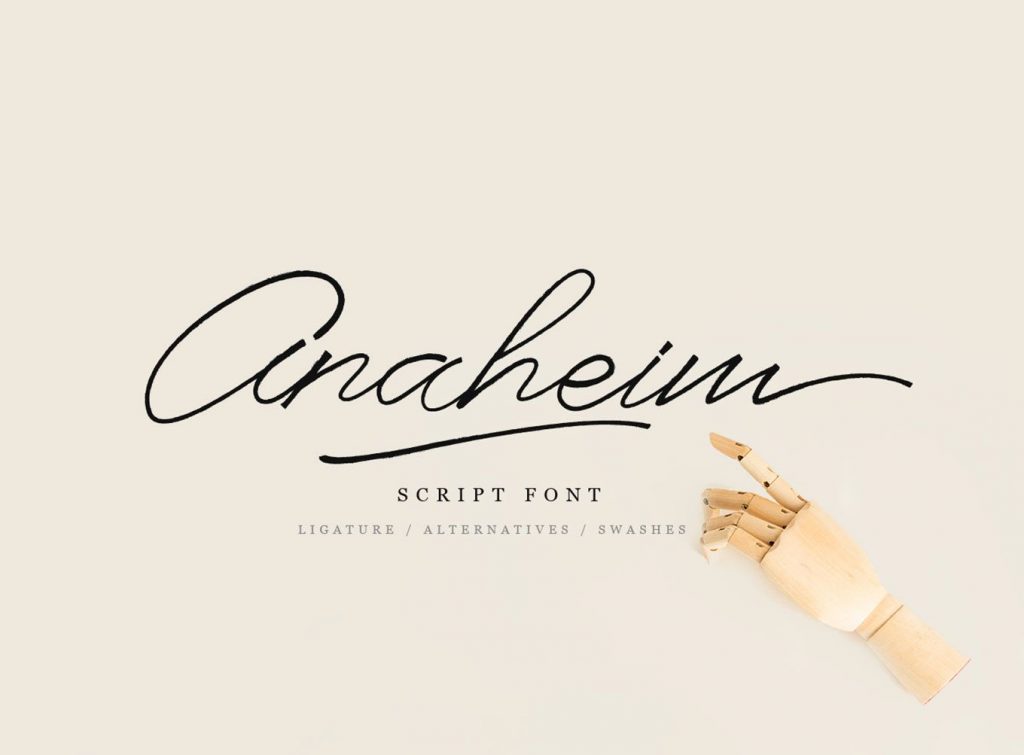
It is built with OpenType features and includes swashes, numbers, alternates and ligatures. Perfect addition to your cards, invitations, logos and any design longings.
Nectar Typeface
It is a thin and wide sans serif display font that’s great for chic titles, elegant invitations and classy logos.
Venge Typeface
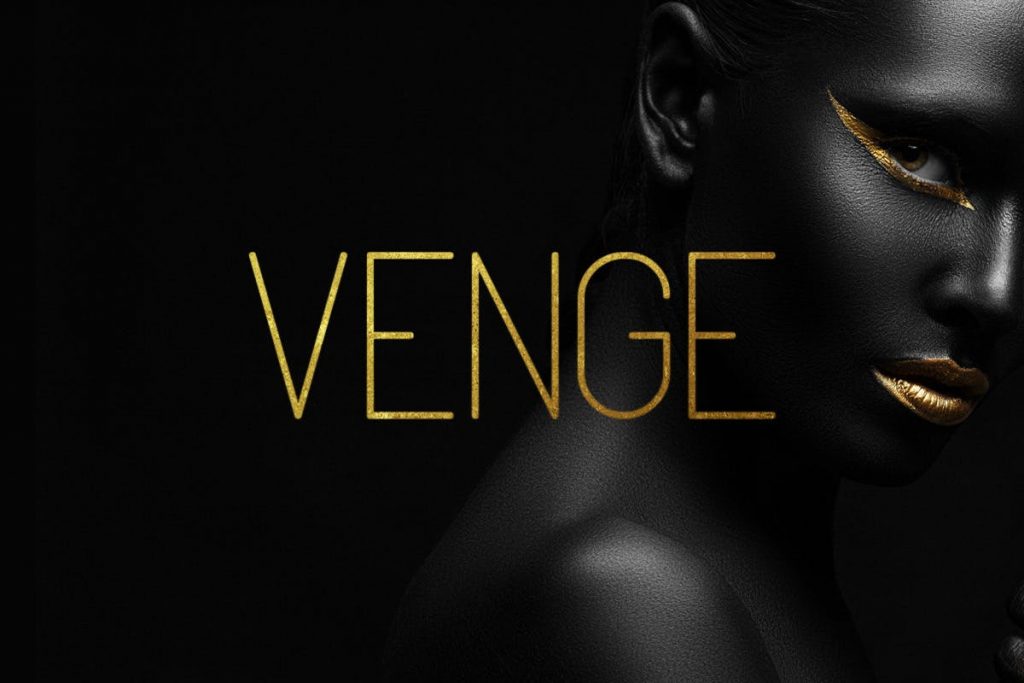
It is a thin, fashionable display typeface in 4 different styles. Ideal for tittles, covers, posters, packaging and etc.
Hacky Thin Font
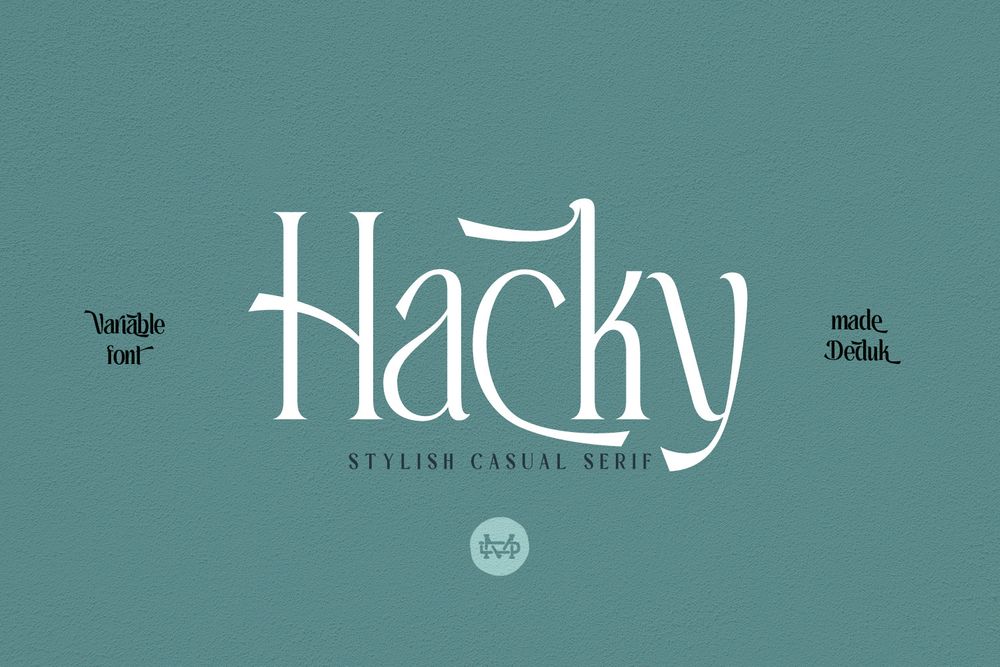
It’s a stylish luxury serif family. It’s clean and have the smooth angle with 9 variable weight and much alternative inside.
Suitable to create any branding, product packaging, invitations, quotes and etc.
Olive Font
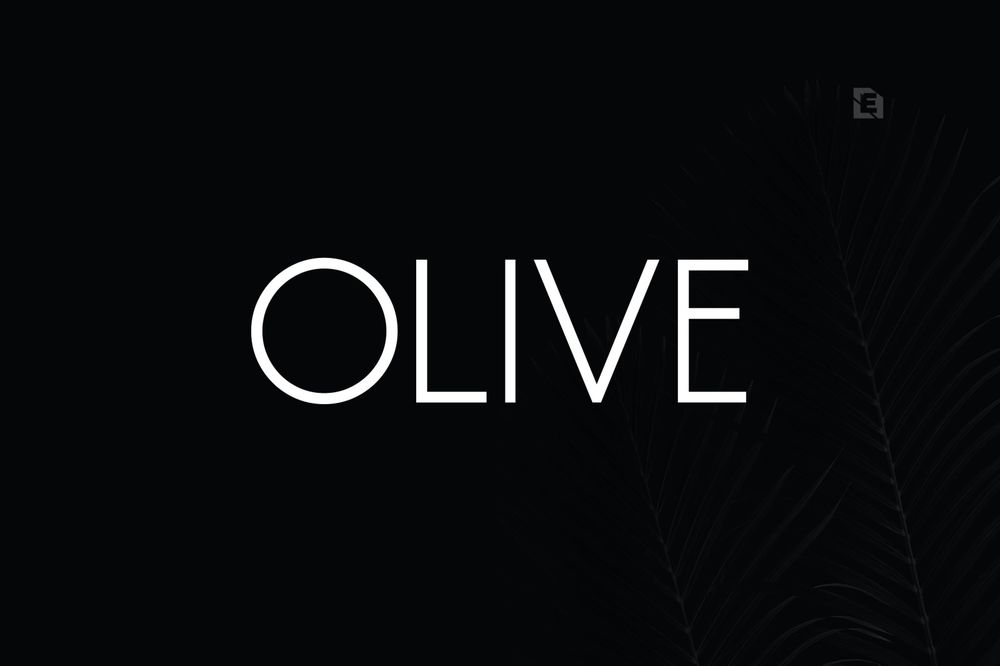
It is a minimal sans serif font type family of seven weights light to bold. Perfect for logos, packaging, greeting cards, presentations, headlines, lettering, posters, branding, quotes, titles and etc.
Holipop / Modern Serif Font
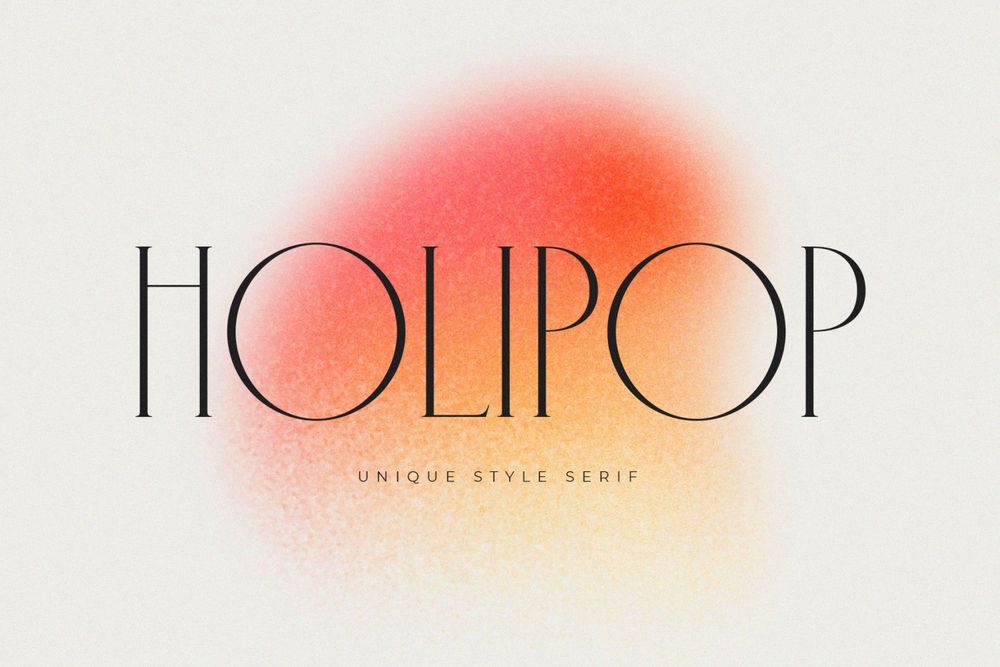
It is a modern and elegant typeface, best used as a display for headings, logos, branding, magazines, product packaging and invitations.
Nomor Serif Font
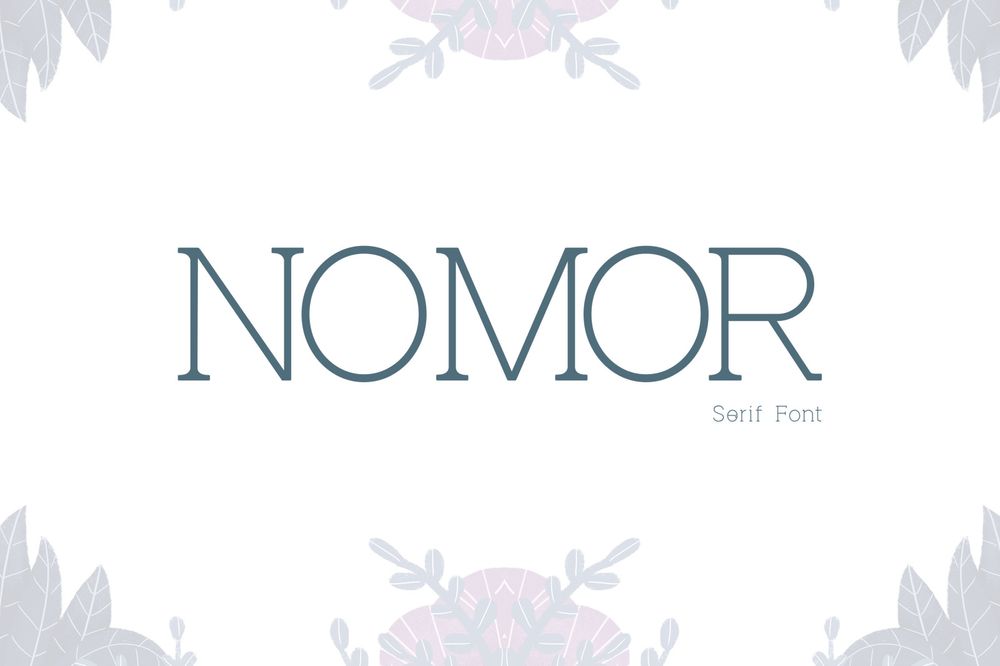
It is an elegant and thin lettered serif font. This adaptable font will look great on a variety of design ideas such as logos, promotional content, and marketing graphics that can bring uniqueness and freshness at its level best.
Monaco Font
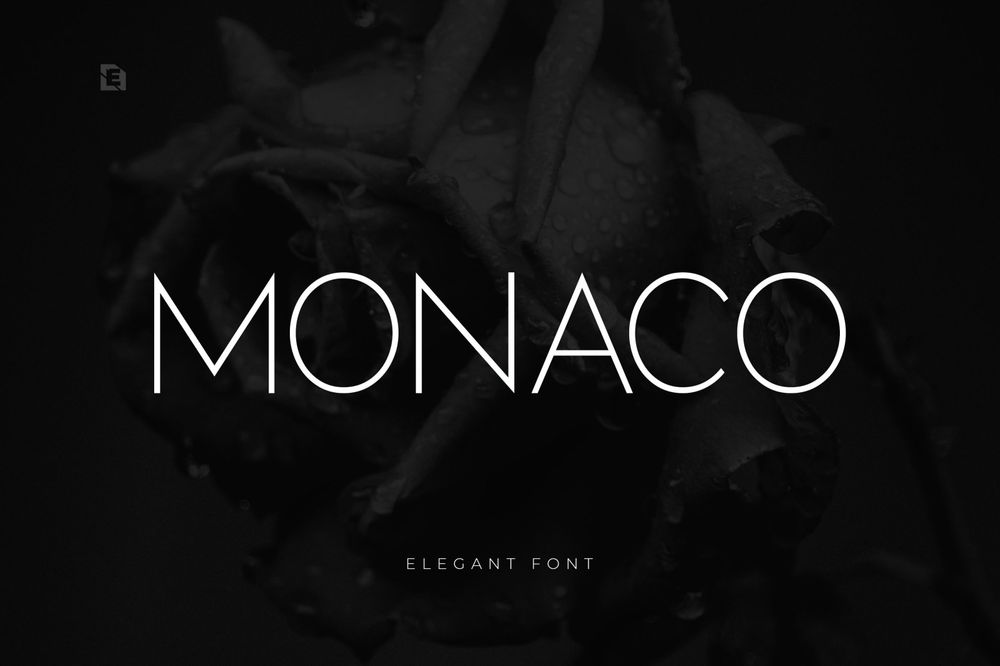
It is a new display font with cool characters. It’s a delightful font with a thin, elegant, style that will be great for any branding project.
Babicho Font
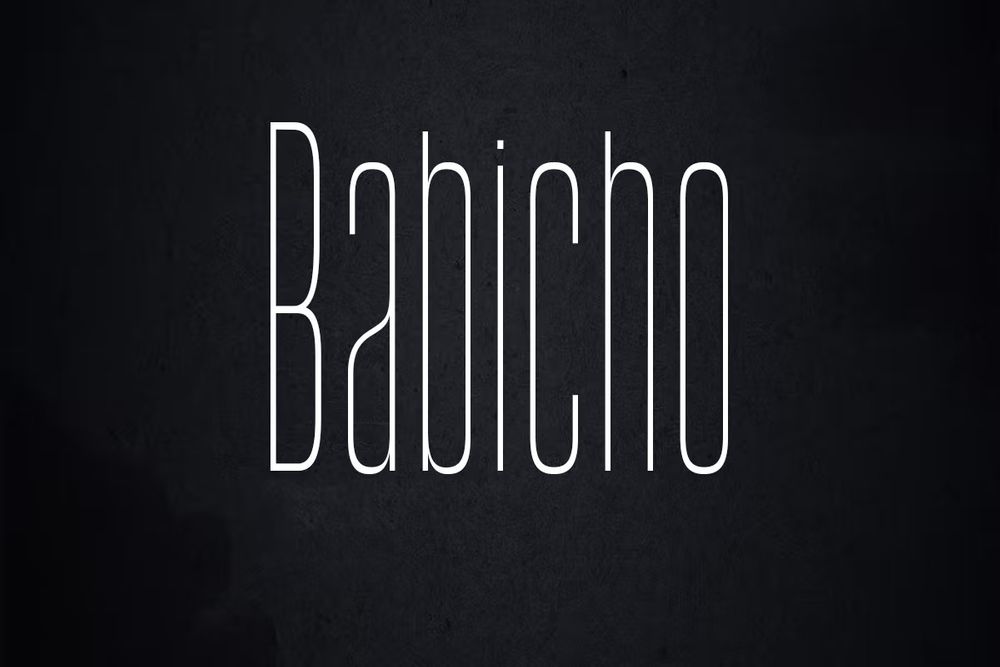
It is a sans serif with a thin and minimalist characters. Perfect for logos, name cards, magazine layouts, invitations, headers, posters, branding, packaging and etc.
Lorino Font
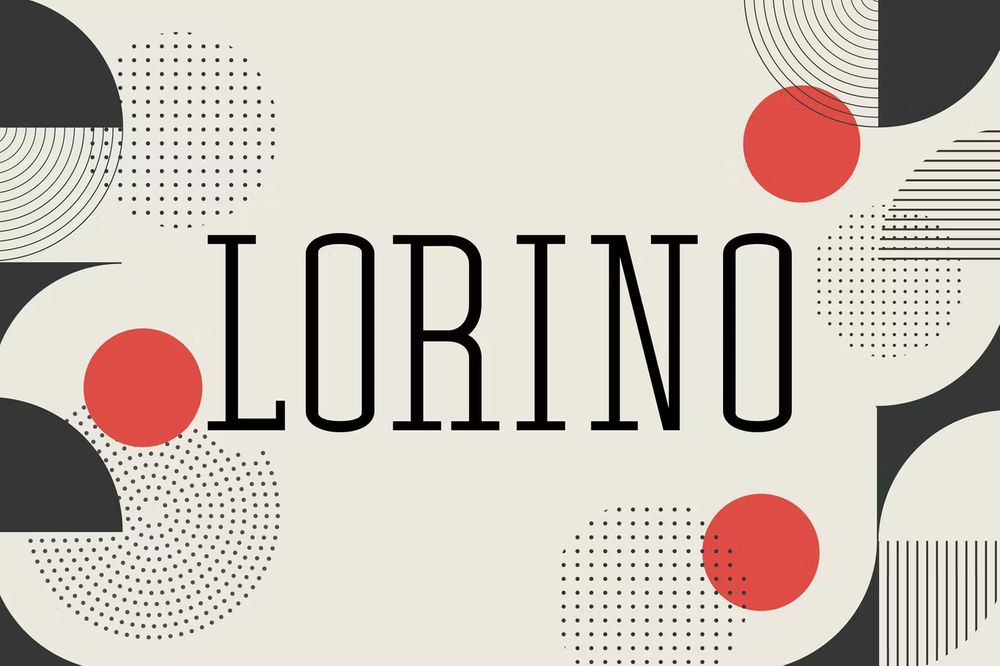
It’s a modern thin serif font with tall characters. Perfect for logos, blogs, magazine layouts, invitations, headers, posters, branding, packaging and etc.
The Rivers – Modern Sans Font
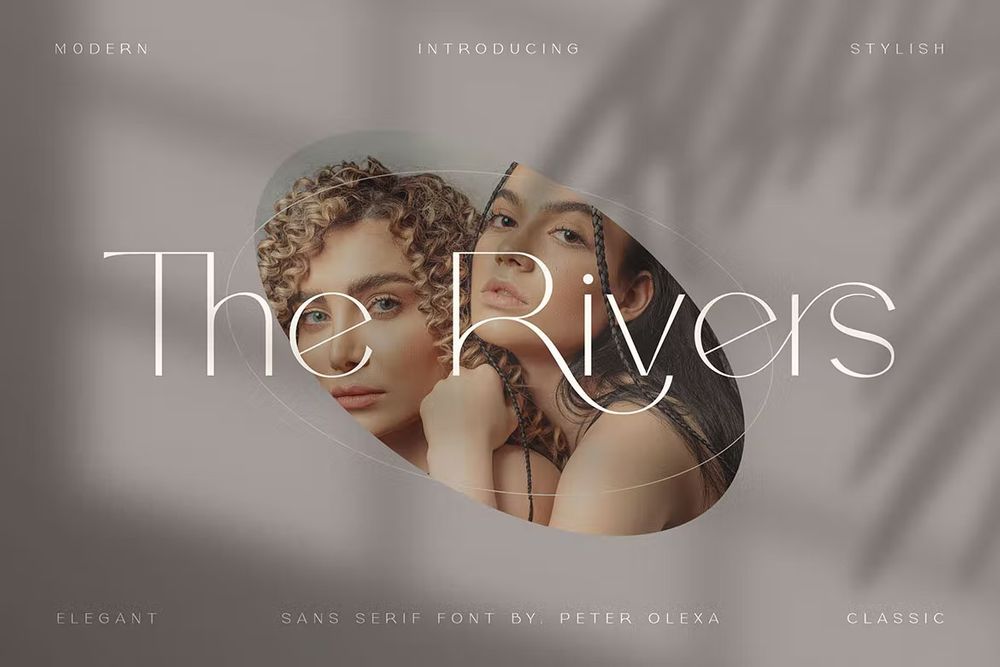
Trendy or modern style sans font for your fancy projects. Elegant, thin and fashion style are perfect for any branding project.
Last Kids Font
It is a fun kid’s handwritten font with thin pen strokes that great for casual projects such as book covers, greeting cards, letterings and etc.
Free Monique Script Font
It is an exclusive freebie signature font. This naturally flowing handwritten font is perfect for business cards, watermarks, photography, inspirational quotes, logos, branding, invitations and etc.
Free Uthman Brush Thin Font
It is a think brush font with modern feel. Perfect for signatures, stationery, logos, typography quotes, magazine or book covers, website headers and etc.
Free Marte Minimalistic Font
It is a free elegant thin font for personal and commercial use. Perfect for feminine designs, greetings cards, titles, covers and etc.
He Loves Me Skinny Font
A classic but original, imperfect skinny font with lots of sweetness. It looks super beautiful in titles, recipes, social media posts, quotes and etc.
Love Junkie Font
It is a skinny, handwritten ballpoint pen font set, including an all-caps version, regular version and dingbat file. Use it for social media, logos, notebooks, stamps, quotes, advertising and more.
The Flowery Font
A cute beautiful thin font for any kind of your design projects. Ideal for book covers, titles, posters, wedding cards and etc.
Classy – Modern Serif Font
It is a modern serif font, that features a simple and minimalist feel. This font will brighten up each of your designs. The only limit is your imagination.
Sprout – Thin Sans Serif Font
A beautiful and elegant thin condensed sans serif font. Perfect for crafting all your wedding designs, invitations, wedding albums, websites and etc.
Silver Thread Font
It is a hairline thin geometric sans serif font with both art deco and 1970s elements to it. Perfect for any project that needs a typeface which evokes elegance and sophistication.